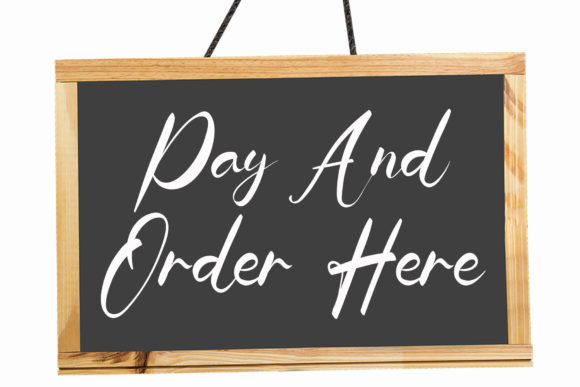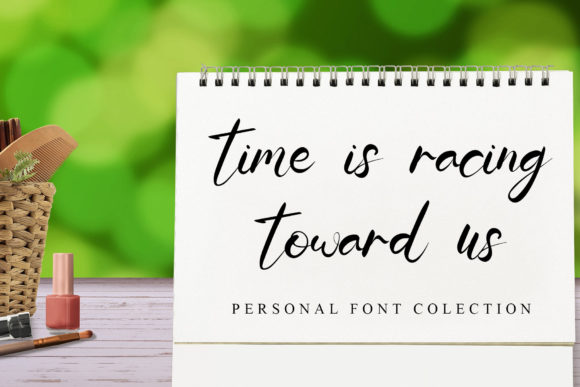
Creative Watercolor Font
db-ku.com - Script & Handwritten -- Creative Watercolor is a lovely and timeless handwritten font. It is the best choice for creating eye catching logos, branding and quotes. Every letter has a unique and beautiful touch, which will make your design come alive!